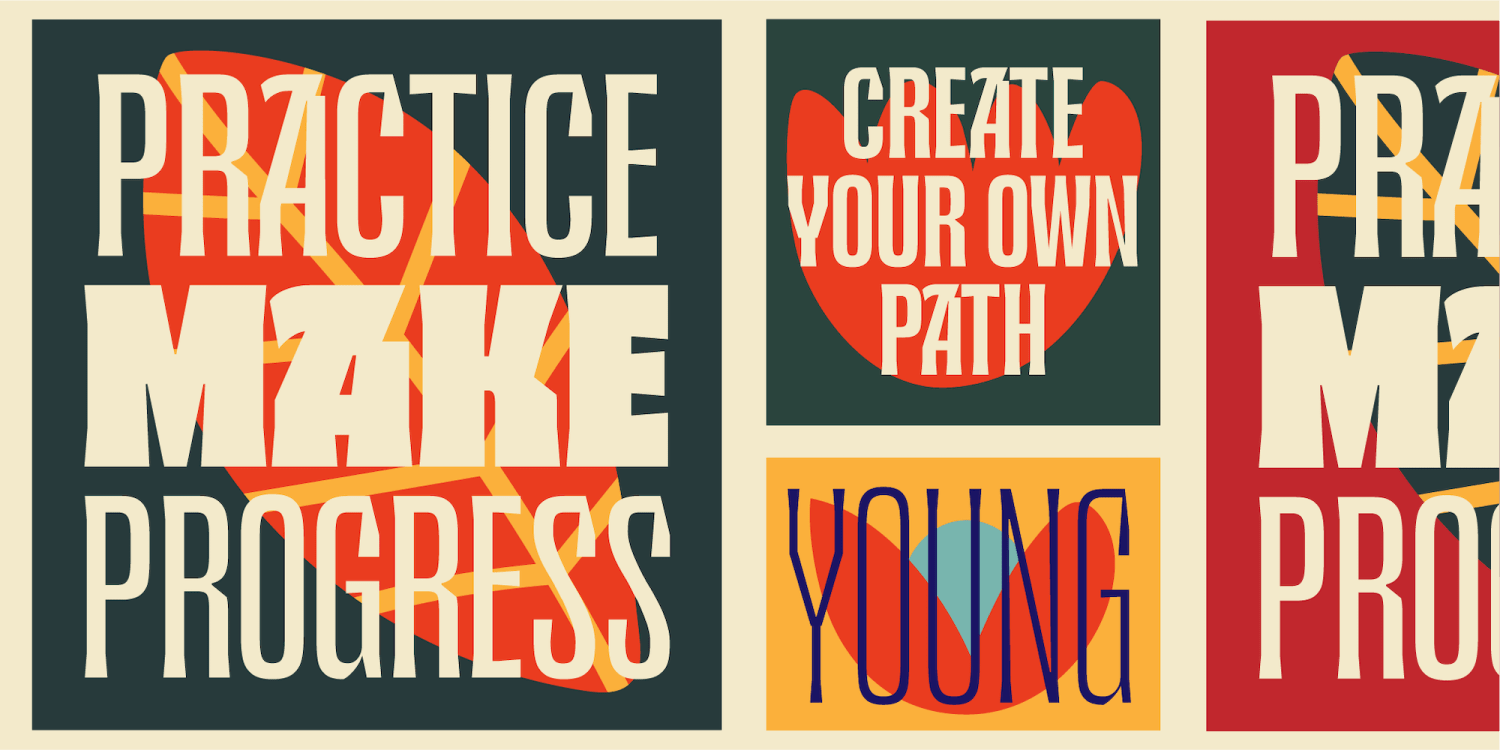
Jacoma
Jacoma is a minimalistic wedge serif font designed with modern aesthetics and versatility in mind. Characterized by its tall, strong, and masculine form, Jacoma offers a sharp and elegant look that commands attention without being overly decorative. This font comes with 9 weights in OTF format, providing flexibility for various design needs. Additionally, Jacoma includes a variable font option, allowing further customization.
With built-in OpenType features like alternate characters, Jacoma offers creative flexibility while maintaining its minimalist charm. The font also supports multiple languages, making it ideal for global use across diverse projects. Whether for branding, editorial, or web design, Jacoma is the perfect blend of simplicity and strength.